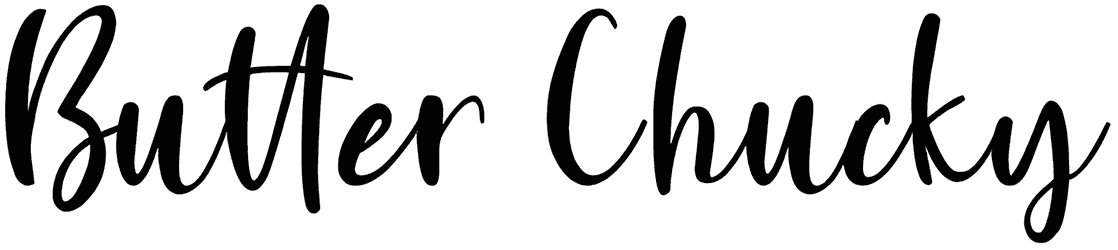
Butter Chucky Font
Butter Chucky is an excellent start for designers who still need a handwritten font in their collection. While its curves and shapes are effortless, it still provides humanity to the script font.
The flourishes added to each letter in this Valentine font make it look classic and can bring personal beauty to your writing. So if you need elegance and human personality in the design of book covers, albums, and stationery packaging, double your power with Butter Chucky.